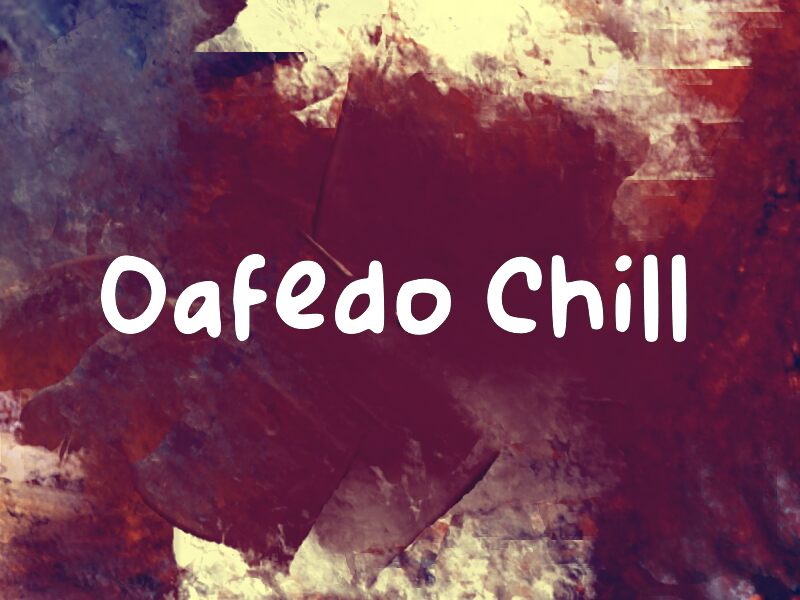
Oafedo Chill font by weps is a free comic-style font that balances modernity and informality to create an approachable typographic outlet for readers and viewers. With a refreshing tone and a personal touch, even to a direct reader, the font excels at creating smooth displays that are as friendly as a smile. Merging a set of modern elements into its design, the font is inspired by the concept that less really can be more.
Use this download with your illustrations and comics, games, posters, branding and packaging projects, apparel items, infographics, logotypes, and more. Mix the fonts, alter the position, or use colors as you see fit because the font family includes a lot of resources that can be combined in different ways and a collection of multi-lingual characters which give you a chance to design with different languages.
Oafedo Chill is a stylish free font that embodies a modern aesthetic. Perfect for a variety of design projects, this font provides a unique and eye-catching look that enhances any visual communication. Its versatility makes it suitable for both digital and print use, ensuring your designs stand out with a contemporary flair.